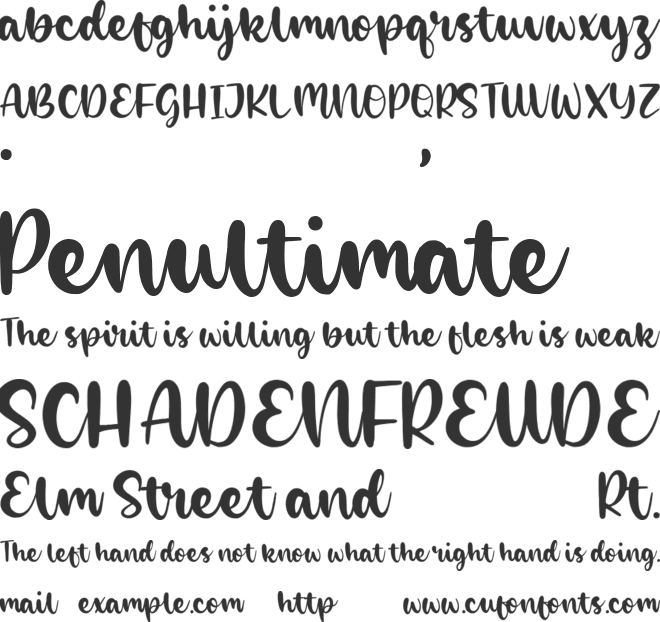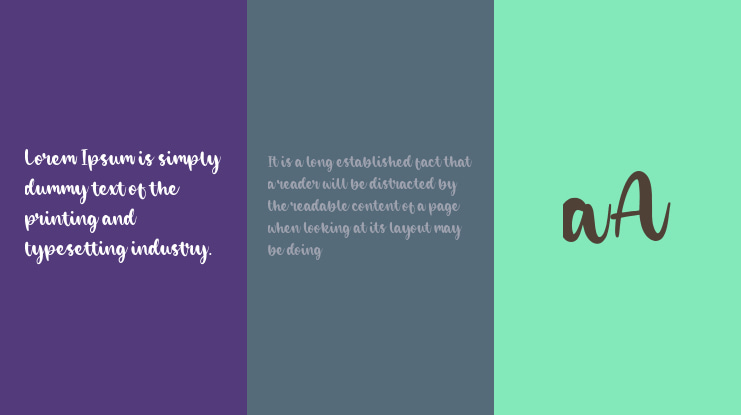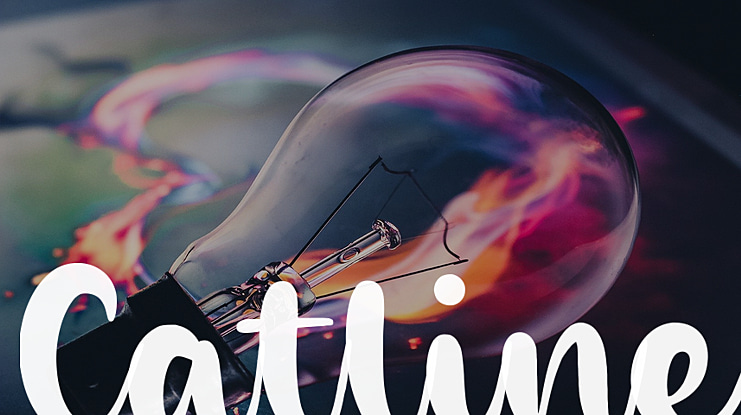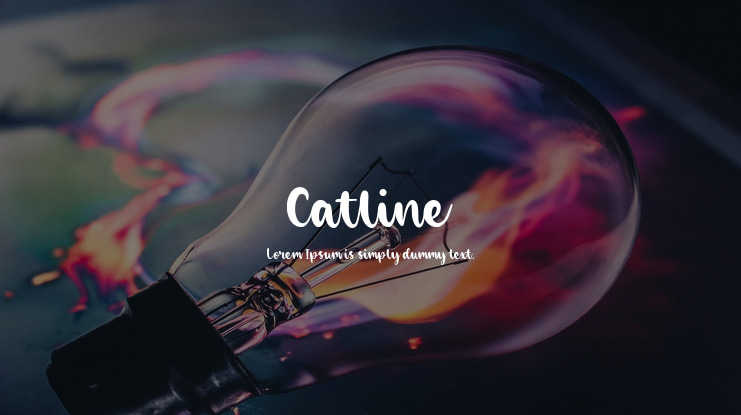
Catline Font
Catline Script Font is a handwritten script font in a modern calligraphy style, with a fun and modern look! Catline is perfect for elegant home designs, wedding decorations, invitations, Cricut projects, crafts, SVG files, shirts, quotes, greeting cards, branding, prints, logos, and more!
– Uppercase, Lowercase, Numeral & Punctuation
– Alternate Letters, Ligature & Swash/Tail